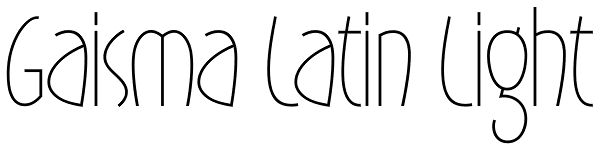
Gaisma Latin
Art Nouveau typeface "Gaisma Latin" ("Light" in Latvian) draws inspiration from Vienna Secession movement and Nordic National Romanticism. The work on the design started as drawings of several characters for the graphic standard for the Jugendstil...